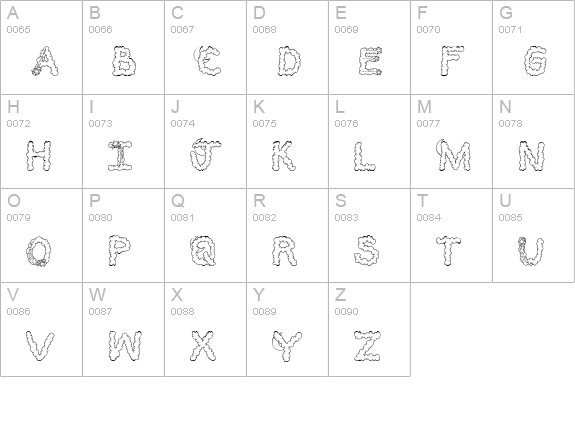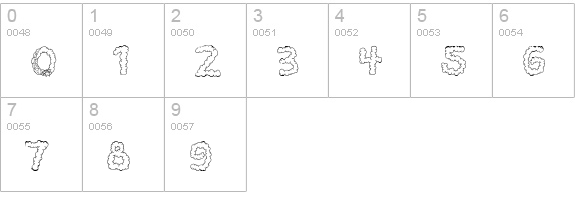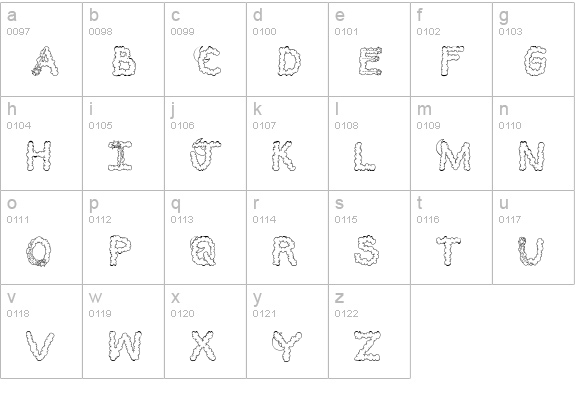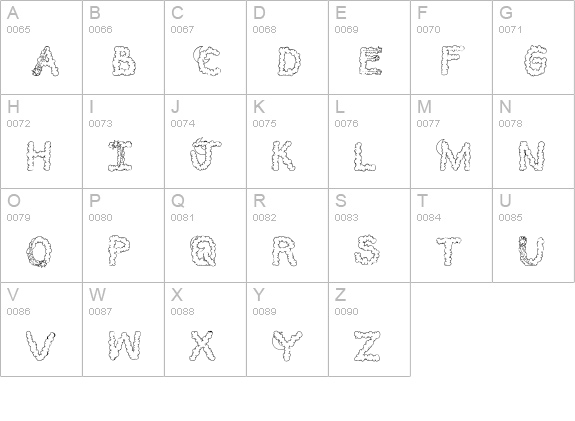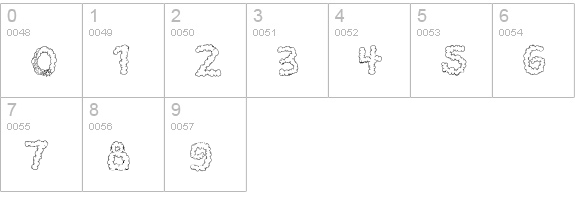
Introducing CK Sweet Dreams font, a whimsical and charming typeface designed to bring a touch of magic to your projects. This delightful font features playful and elegant letterforms that exude a sense of warmth and sweetness. Perfect for creating eye-catching designs for children's books, invitations, posters, and more. What's even better is that CK Sweet Dreams font is completely free to download at FontsMarket.com. Embrace the beauty and creativity of this unique font without any cost, and let your imagination run wild with endless design possibilities. Add a sprinkle of sweetness to your projects with CK Sweet Dreams font today!